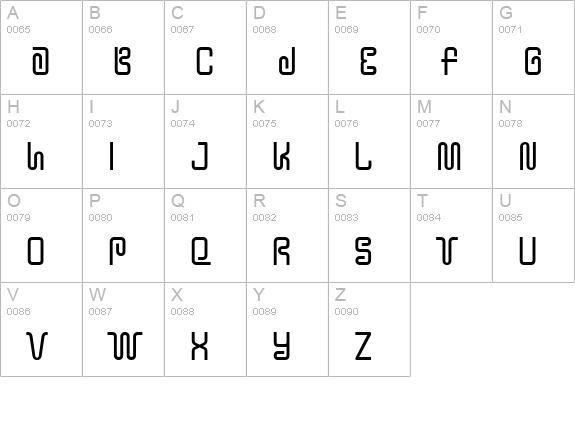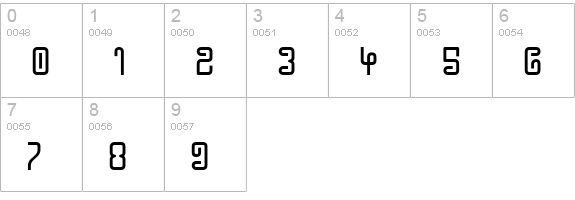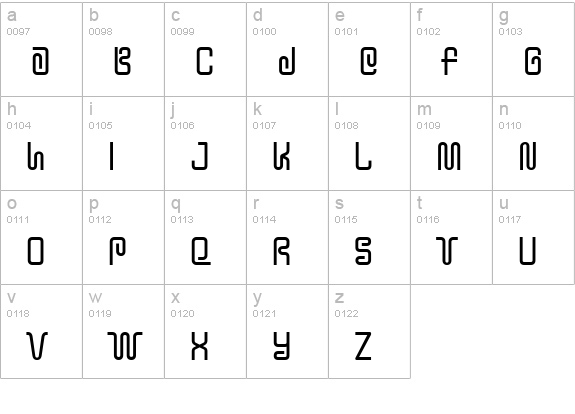
Y2KBUG Font Details
Y2KBUG font is a quirky and nostalgic typeface inspired by the digital aesthetics of the early 2000s. Its unique design features a blend of sharp corners and rounded edges, giving it a playful and futuristic look. Perfect for adding a touch of retro charm to your designs, Y2KBUG font is sure to stand out and make a statement. Best of all, Y2KBUG font is available for free download at FontsMarket.com. Whether you're working on a creative project, designing a website, or just looking to add a fun twist to your text, this font is a great choice. So why wait? Download Y2KBUG font today and let your creativity shine!